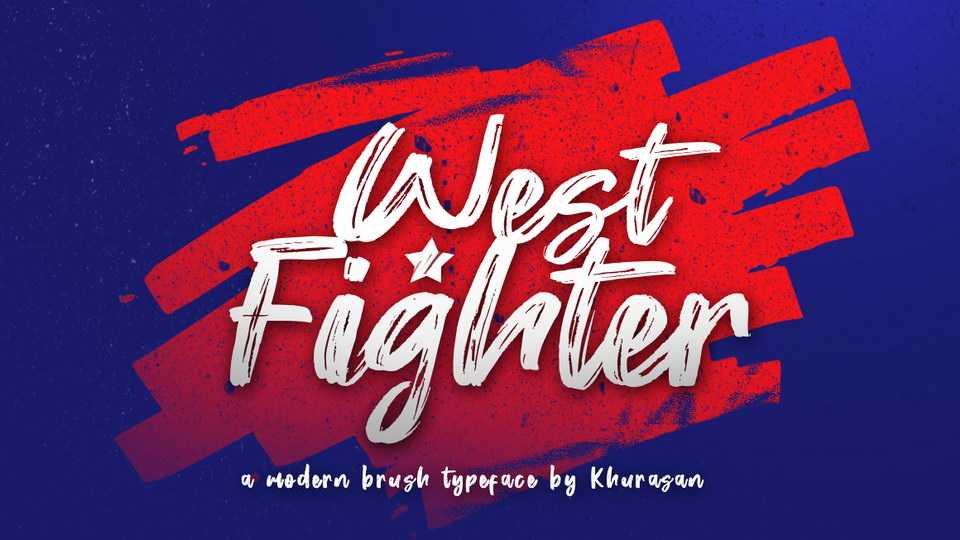
Download West Fighter font, a bold handwritten brush typeface with a strong character. West Fighter font is perfect for branding, t-shirt and apparel, headlines, posters, social media and more.